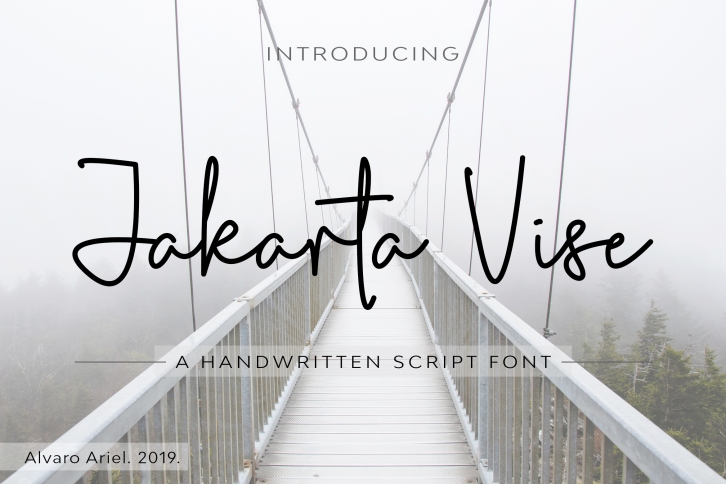
Jakarta Vise is a beautiful font that was designed by Alvaro Ariel. It's a great choice for designers and creatives who need such a font. It was released on October 28, 2019 and the file size is 19.56 MB. Jakarta Vise may give a more youthful, expressive and casual look to your project. It is a very beautiful, refined, elegant, and high-quality font.